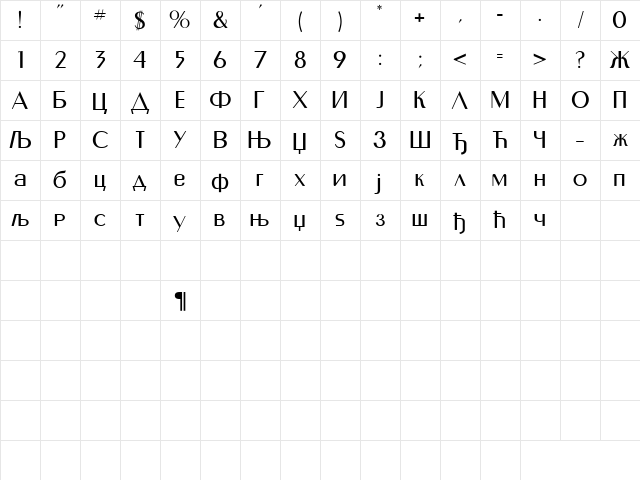
Murmansk Cirilica Regular
Design Context for Murmansk Cirilica
Murmansk Cirilica is a composed and adaptable typeface that performs quietly and consistently across a wide range of design contexts.
Pro Tip: Use Murmansk Cirilica in both headline and body roles to test its range before committing to a single application.